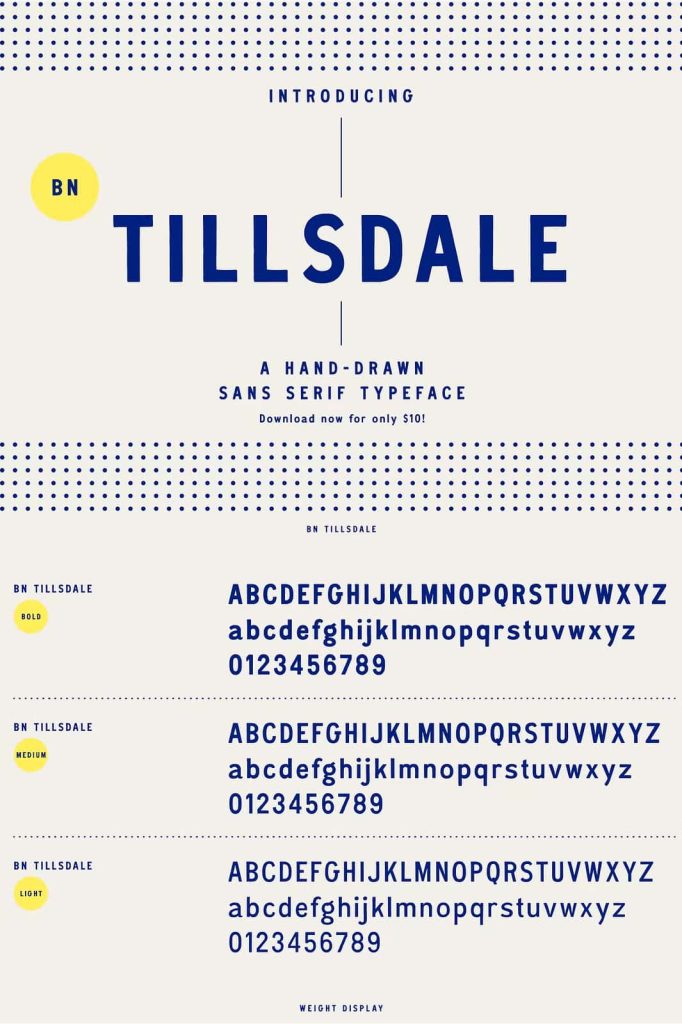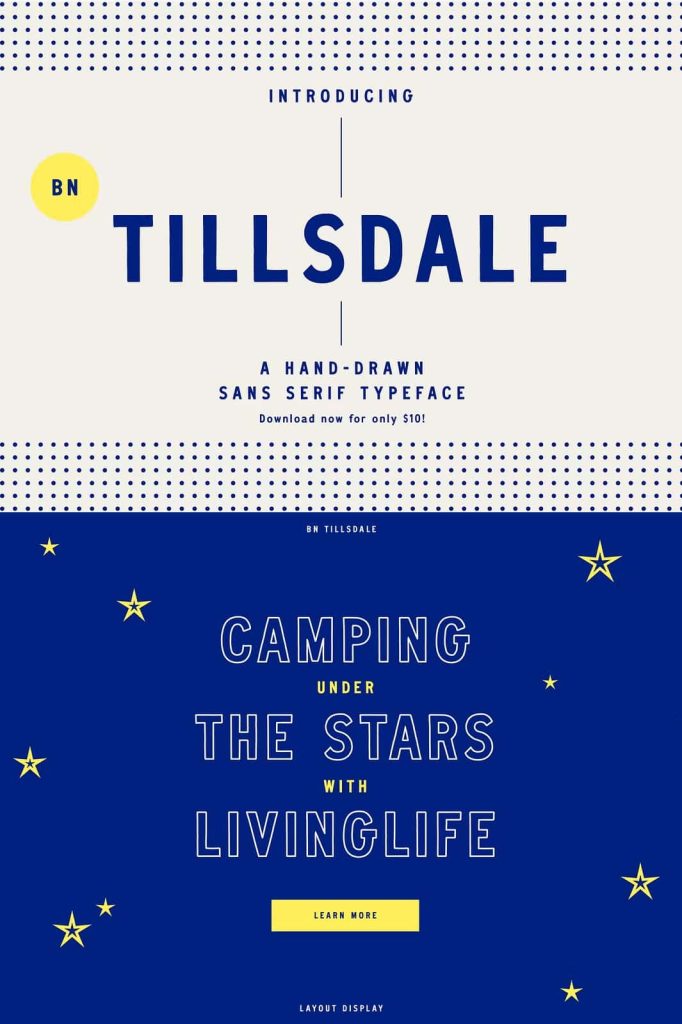
BN Tillsdale: Hand-drawn Font Family
BN Tillsdale Hand-Drawn Sans Serif Font
BN Tillsdale is a versatile hand-drawn sans serif typeface designed to bring personality, balance, and handcrafted character to modern graphic design. With three carefully developed weights and a well-balanced semi-condensed structure, BN Tillsdale gives designers the flexibility to create everything from distinctive display layouts and quirky logos to editorial compositions and long-form content.
The typeface combines the clean foundation of a sans serif with the natural imperfections of hand-drawn lettering. This combination creates a friendly and approachable appearance without sacrificing structure or readability. BN Tillsdale can support expressive headlines when you need to make a strong statement, while its balanced proportions also allow it to handle smaller text and longer passages with confidence.
A Hand-Drawn Sans Serif with Character
BN Tillsdale stands apart through its handcrafted construction. Rather than presenting perfectly uniform digital letterforms, the typeface introduces subtle human qualities that make the lettering feel more personal and visually engaging. These details add warmth while preserving the clarity expected from a functional sans serif.
The result is a typeface that can move comfortably between playful and professional design environments. Use it when you want a layout to feel approachable, creative, and slightly unconventional without making the typography difficult to read.
Three Useful Font Weights
BN Tillsdale comes in three weights, giving designers greater control over hierarchy and emphasis. Multiple weights allow you to build complete typographic systems while maintaining the distinctive personality of the family.
Use a heavier weight for prominent headlines, titles, logos, and display text. Choose a medium treatment for subheadings, supporting statements, and highlighted information. A lighter weight can provide a more restrained appearance for paragraphs, captions, descriptions, and other secondary content.
Create Clear Typographic Hierarchy
Strong typography depends on clear relationships between different levels of information. BN Tillsdale makes it easier to establish those relationships because you can use different weights while keeping the same underlying letterform style.
For example, place a bold BN Tillsdale headline at the top of a poster, use a medium weight for supporting details, and apply the lighter weight to additional information. This approach creates contrast without introducing unrelated typefaces into the composition.
Balanced Semi-Condensed Form
The semi-condensed structure gives BN Tillsdale a practical balance between character and space efficiency. Its proportions allow designers to create strong headlines without requiring excessive horizontal space. This makes the typeface particularly useful for posters, packaging, editorial layouts, website headers, and other designs where available space matters.
The condensed influence also creates a distinctive visual rhythm. Words can sit comfortably within narrow layouts while maintaining enough openness for comfortable reading. This balance allows BN Tillsdale to perform well at both display sizes and smaller applications.
Perfect for Display Layouts
BN Tillsdale can create strong visual impact in display typography. Use it for posters, advertisements, banners, campaign graphics, event materials, presentation covers, magazine headlines, and promotional artwork.
The hand-drawn personality helps headlines feel less generic, while the semi-condensed structure allows you to fit longer phrases into compact compositions. Experiment with large-scale lettering, stacked words, centered layouts, or asymmetric arrangements to emphasize the font’s expressive qualities.
Create Quirky and Memorable Logos
Logo design benefits from typography that feels distinctive and recognizable. BN Tillsdale provides a handcrafted quality that can help a wordmark stand apart from conventional sans serif identities. Its playful details make it particularly effective for brands that want to communicate creativity, friendliness, and individuality.
Use the heavier weights for strong wordmarks and experiment with spacing to create a custom logo treatment. BN Tillsdale can suit creative studios, independent businesses, lifestyle brands, cafés, boutiques, publishers, restaurants, makers, and other businesses that want a more approachable identity.
Build a Friendly Brand Personality
The combination of hand-drawn details and clean sans serif structure gives BN Tillsdale a human personality. This makes it useful for brands that want to appear accessible rather than overly corporate.
Use the font consistently across logos, packaging, social media graphics, promotional materials, and website headings. Different weights allow you to create variation while preserving the same recognizable visual language throughout the brand.
Use BN Tillsdale to create unique display layouts, quirky logos, expressive branding, editorial designs, packaging, social media graphics, and long-form content. Its adaptable personality allows you to move between playful, modern, vintage-inspired, and professional visual directions while maintaining a consistent typographic character.
If you want a versatile hand-drawn sans serif with strong personality, practical proportions, and multiple weight options, BN Tillsdale offers a reliable and creative foundation for your next design project.